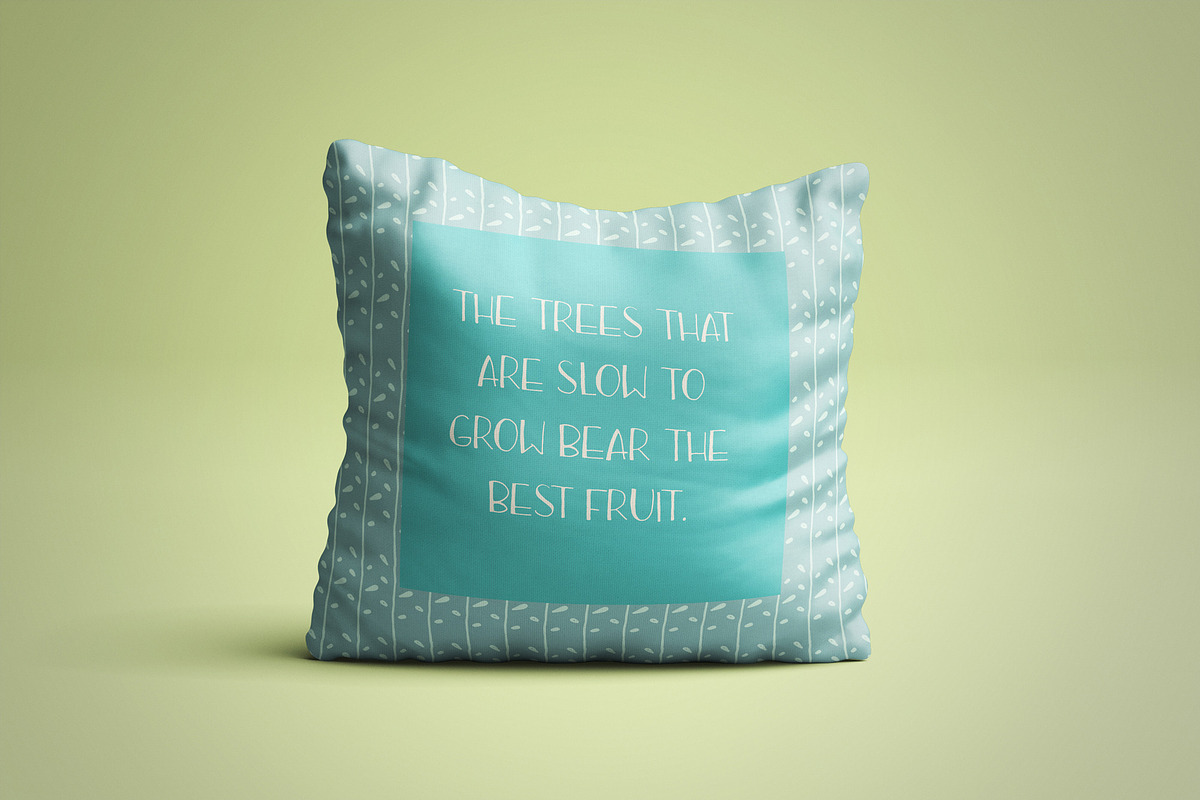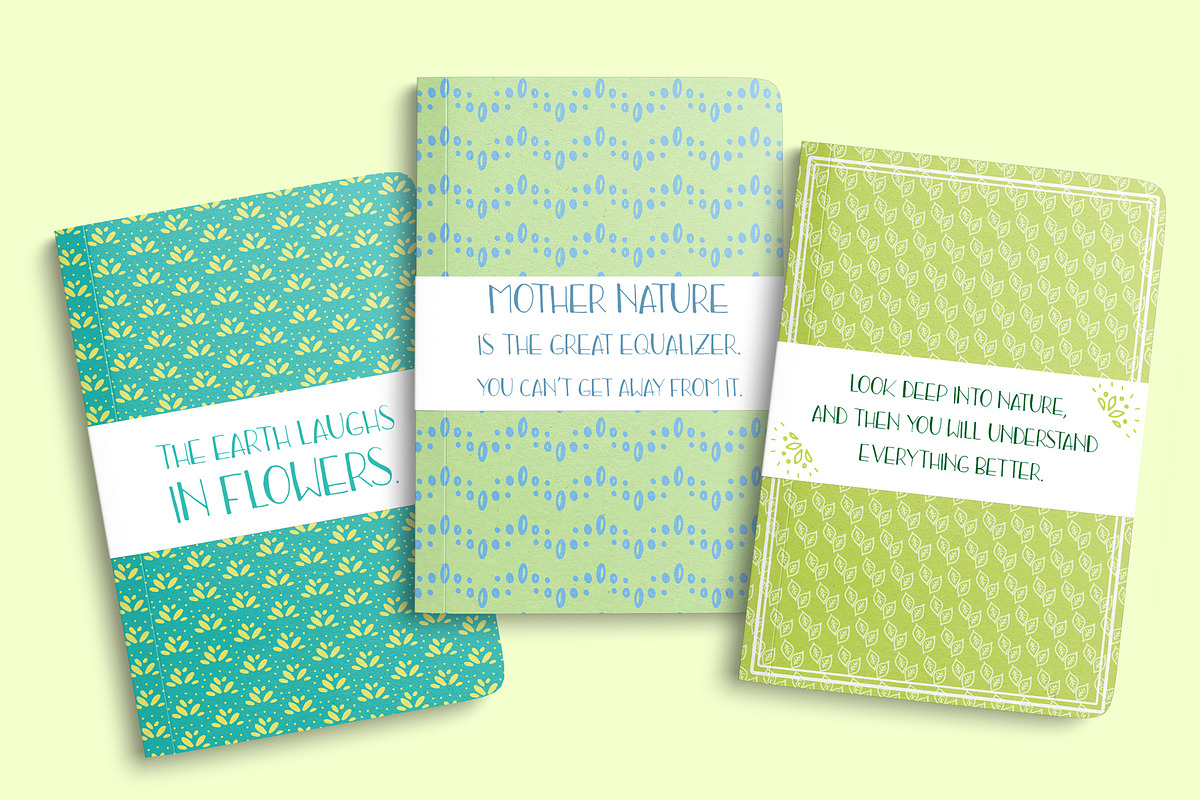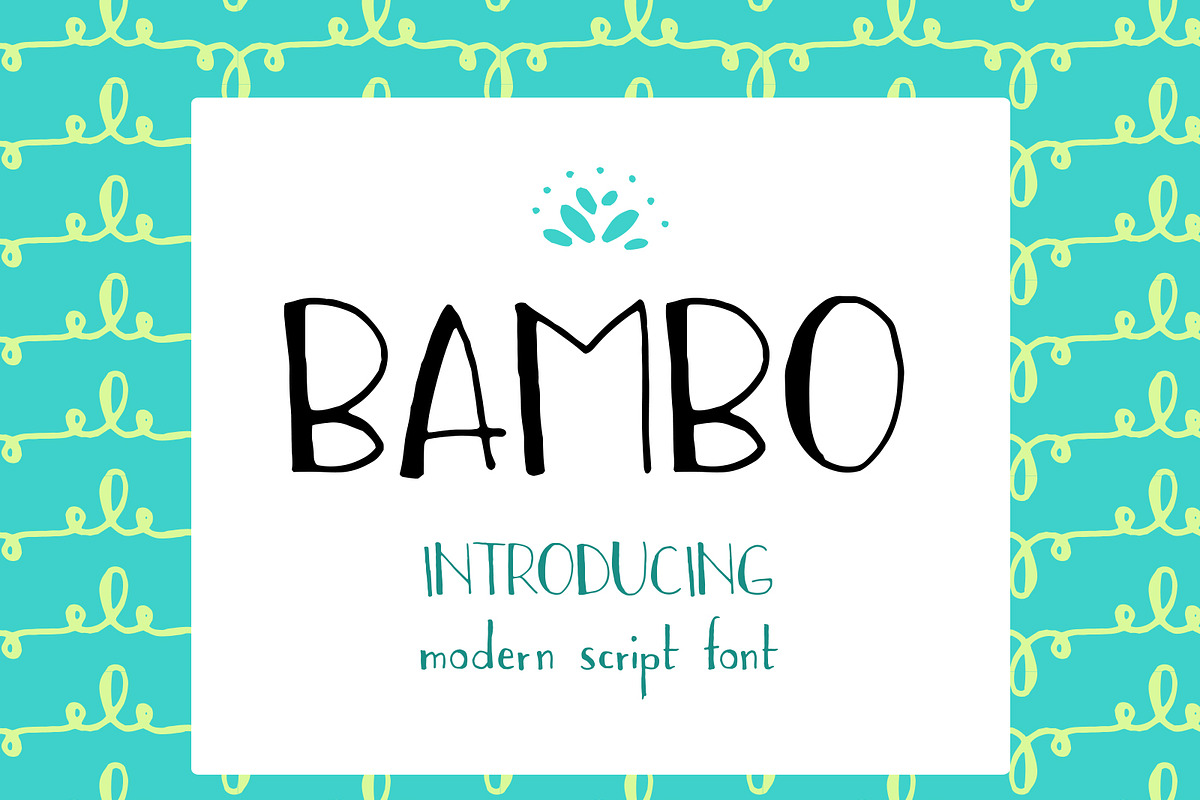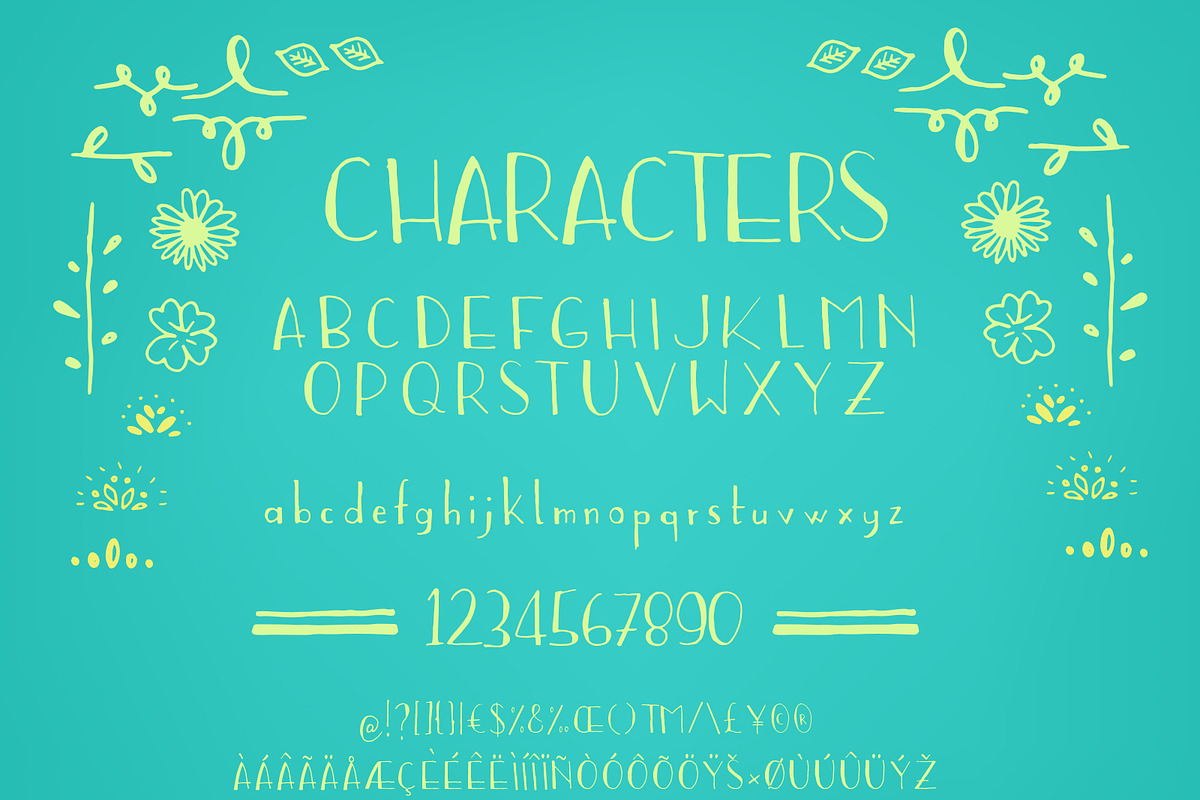
BAMBO font
BAMBO font by PATCHPO is a font selected for branding, posters, packaging, typography.
Why BAMBO font is worth a look
BAMBO font by PATCHPO fits naturally into Branding, posters, packaging, typography.